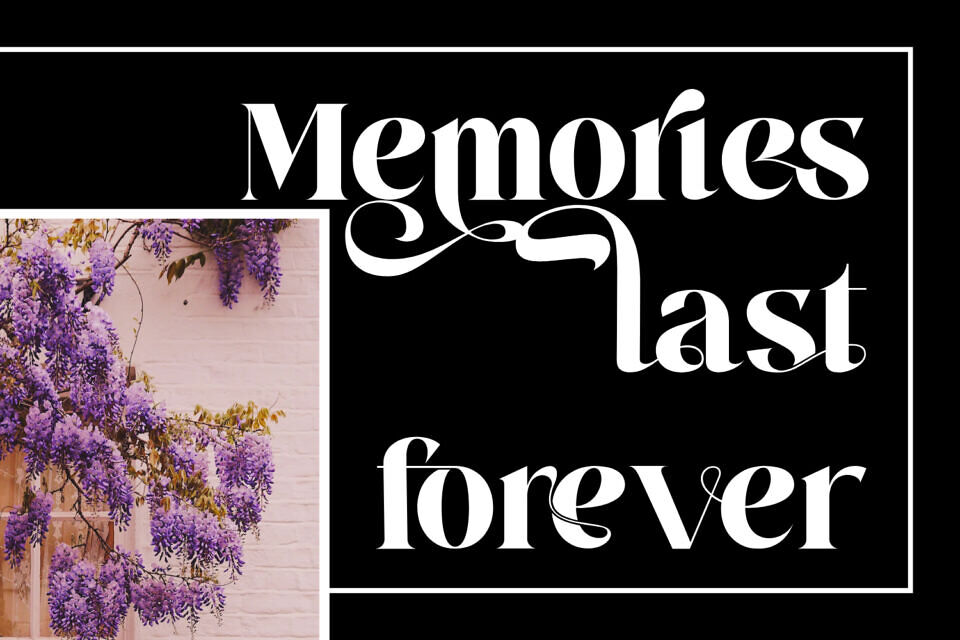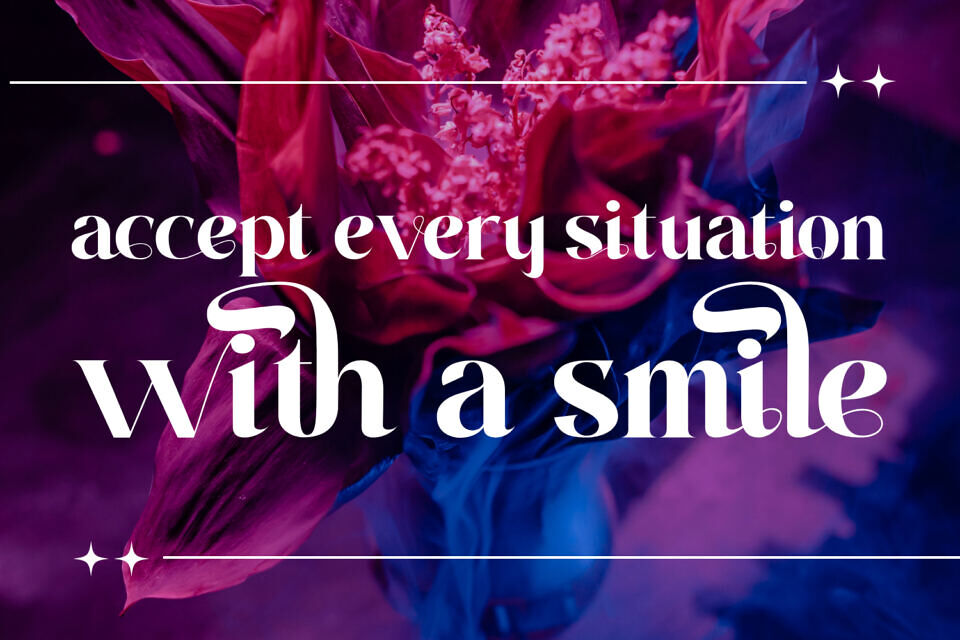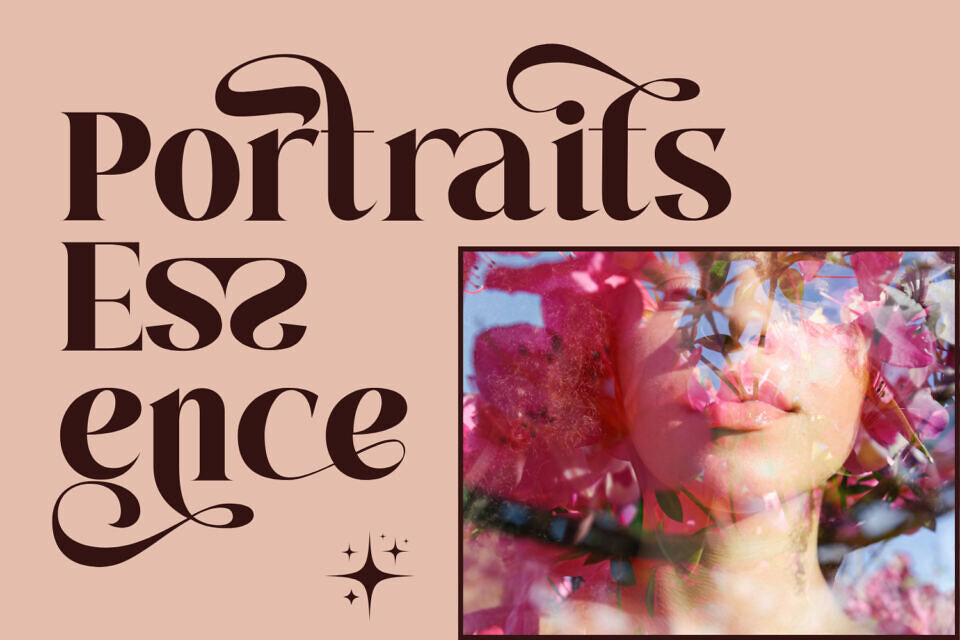
Titanium Galleries Font
Titanium Galleries is a modern luxury serif typeface that blends refined elegance with bold artistic flair. Featuring high-contrast strokes, extended dramatic swashes, and graceful curves, this font is designed to command attention in premium branding, editorial design, event invitations, and high-fashion advertising.
Its sophisticated style makes every composition feel like a masterpiece. With over 100 expertly crafted ligatures, Titanium Galleries allows seamless letter combinations, ensuring smooth and beautiful typography. Each character is meticulously designed to balance readability with expressive detail, making it perfect for both display headlines and refined text layouts.